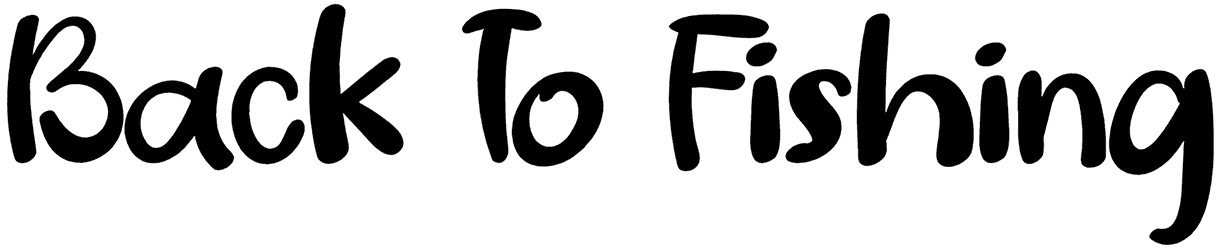
Need a sweet, warm touch to capture the mind and interest of your audience and also boost your graphical face altogether? Well, the Baby Caroline Sans font can bring it to pass.
Friendly and approachable outwardly make this baby font a suitable preference for many varied themes. No matter if you want to invent an animation, poster, or title for flyers, it will convert your words into a piece of art and keep all eyes on you.